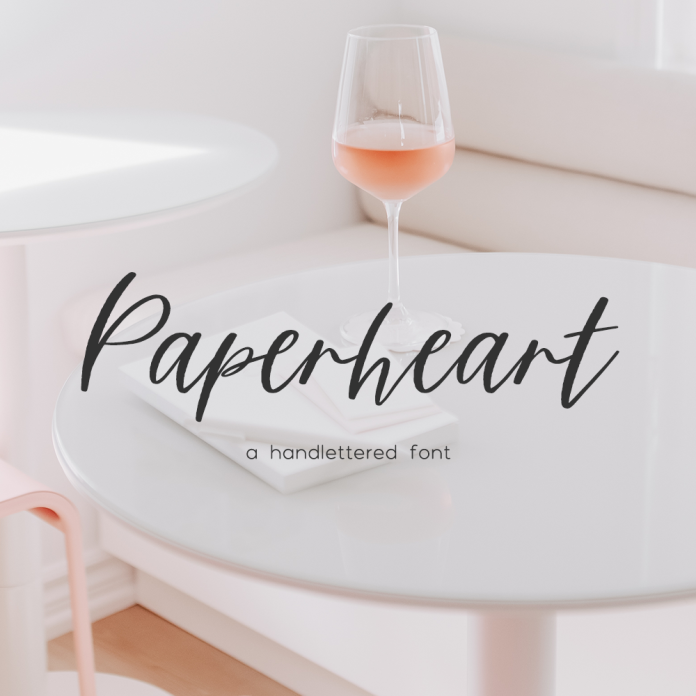
Paperheart Script Font
Introducing Paperheart, a lightly textured brush font. Paperheart toes the line between a signature font, and something a bit more calligraphy-like, with a slight feminine feel. Paperheart is best for: - social media graphics or quote graphics - logos + branding with a modern feel - website design + website accents - clean print design, like magazines + flyers - header elements that need handwritten touch Paperheart includes: - full upper + lowercase characters - numbers + punctuation - Western European Language Support - PUA-encoding